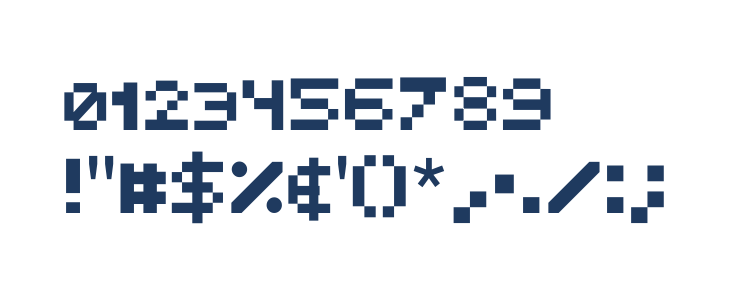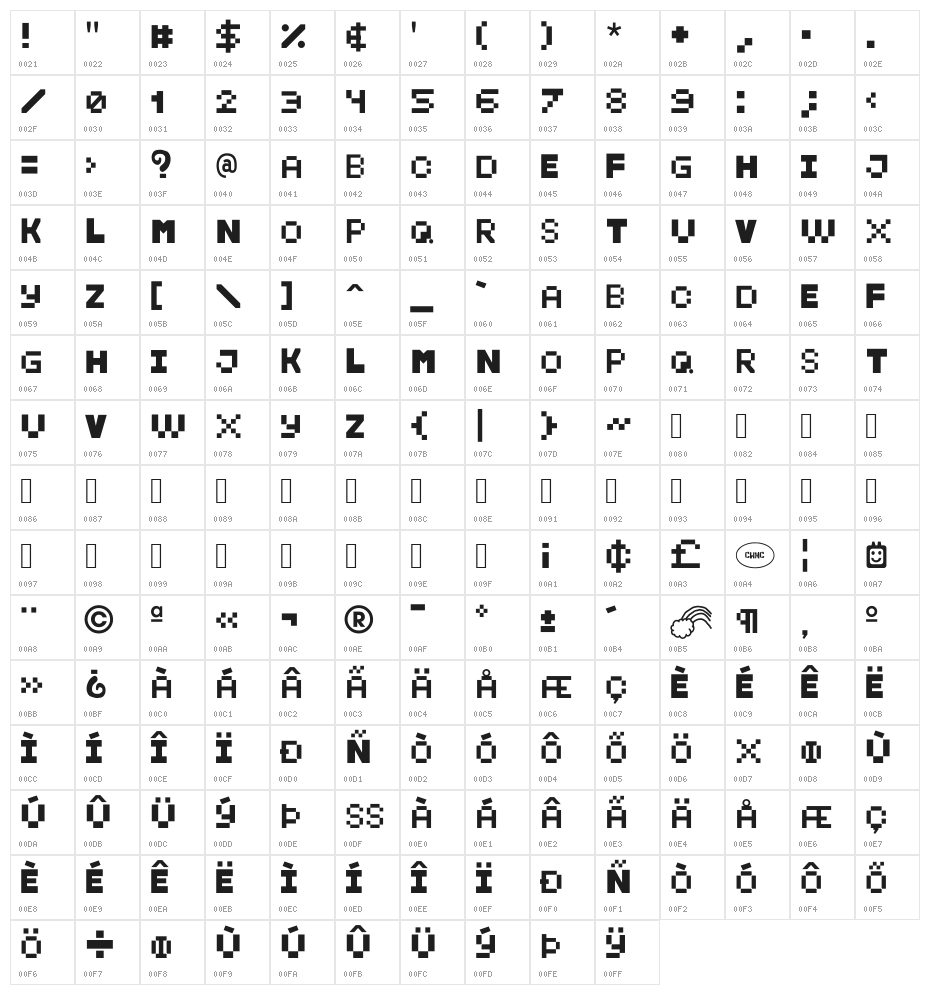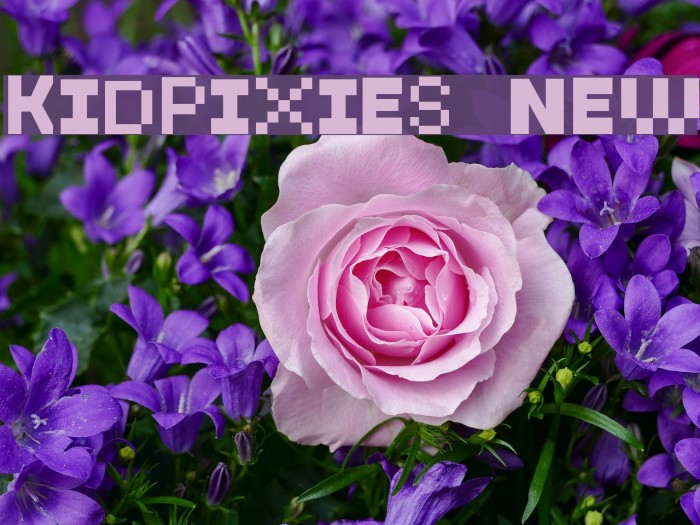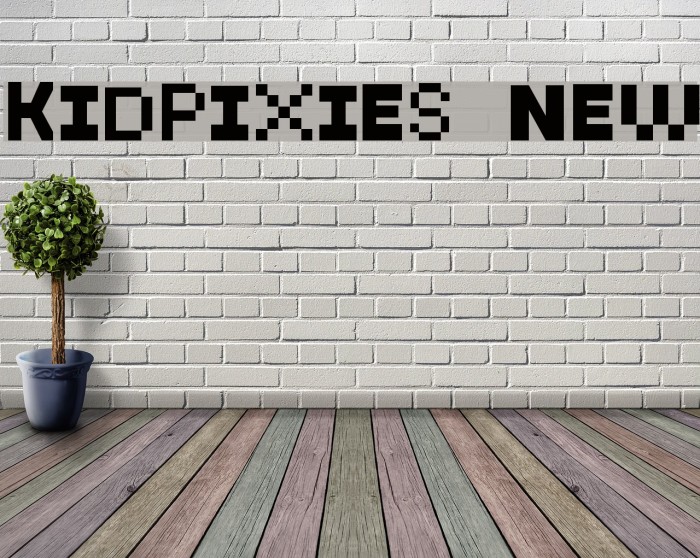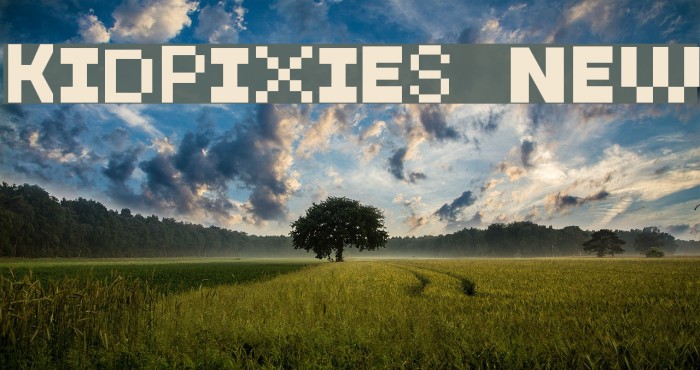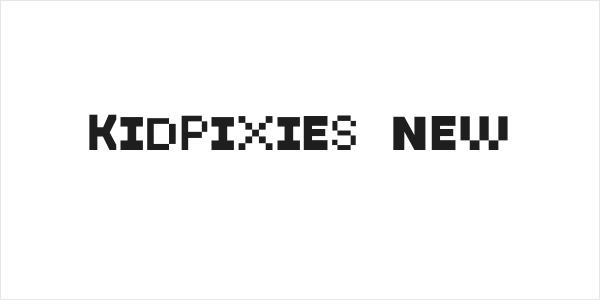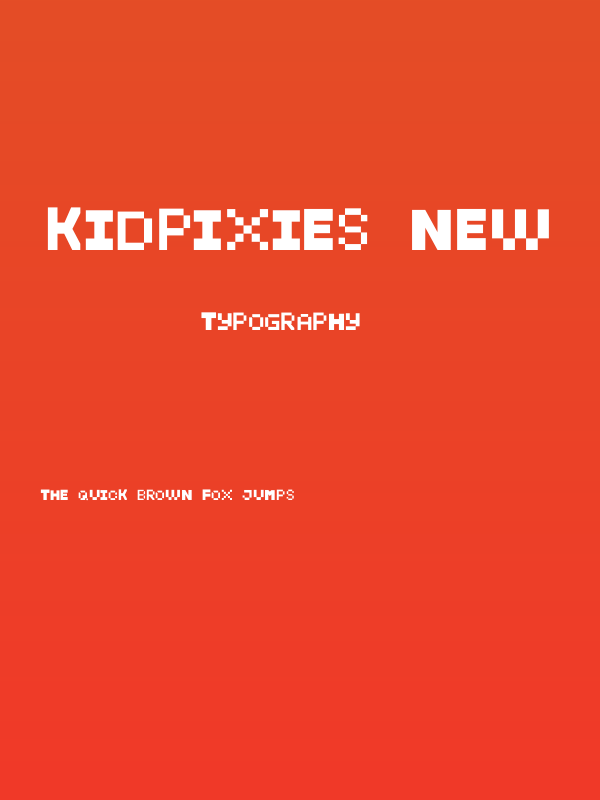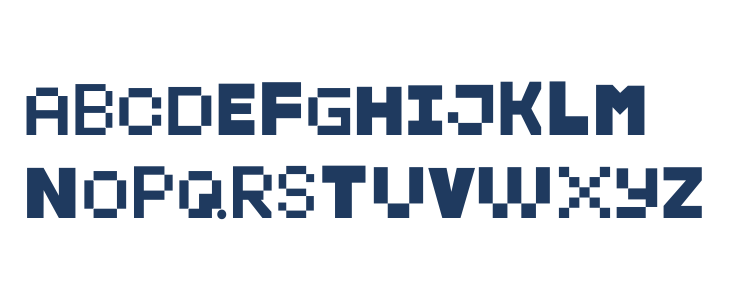
KidPixies New Font
KidPixies New Description
This font features a bold, pixelated style reminiscent of early digital and video game typography. Each character is constructed with a blocky, square design, giving it a distinctly retro and playful appearance. The uniformity in height and width across characters creates a cohesive and structured look, while the pixelated edges add a touch of nostalgia. This font is ideal for projects that aim to evoke a sense of fun and creativity, especially those related to gaming, technology, or digital art. Its clear and bold presentation ensures readability even at smaller sizes, making it versatile for various design applications.
| Overall Style | Retro, Playful |
| Use Case | Headlines, Logos, Digital Art |
| Proposed Projects | Ideal for video game graphics, digital art projects, retro-themed designs, and technology-related branding. |